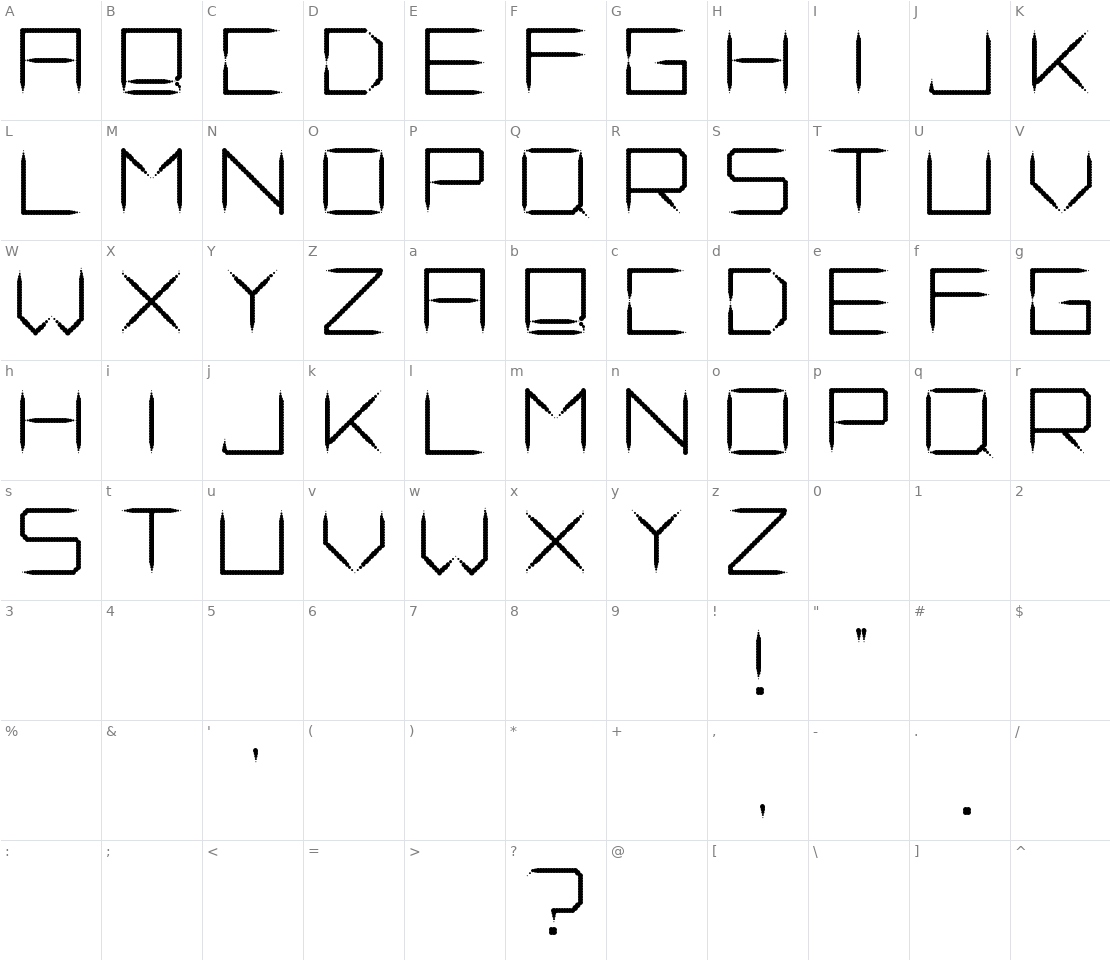
Fade Away
by B-e-n-O-F-o-n-t
Fade Away is a thin, angular display face from B-e-n-O-F-o-n-t with sharp geometric letterforms that feel stripped to their structural minimum. The lightweight strokes and futuristic proportions give it a cool, technical detachment, like text rendered on a heads-up display or a piece of speculative UI. Best at large sizes for headlines, tech branding, or anywhere a quiet, minimalist intensity matters more than warmth.